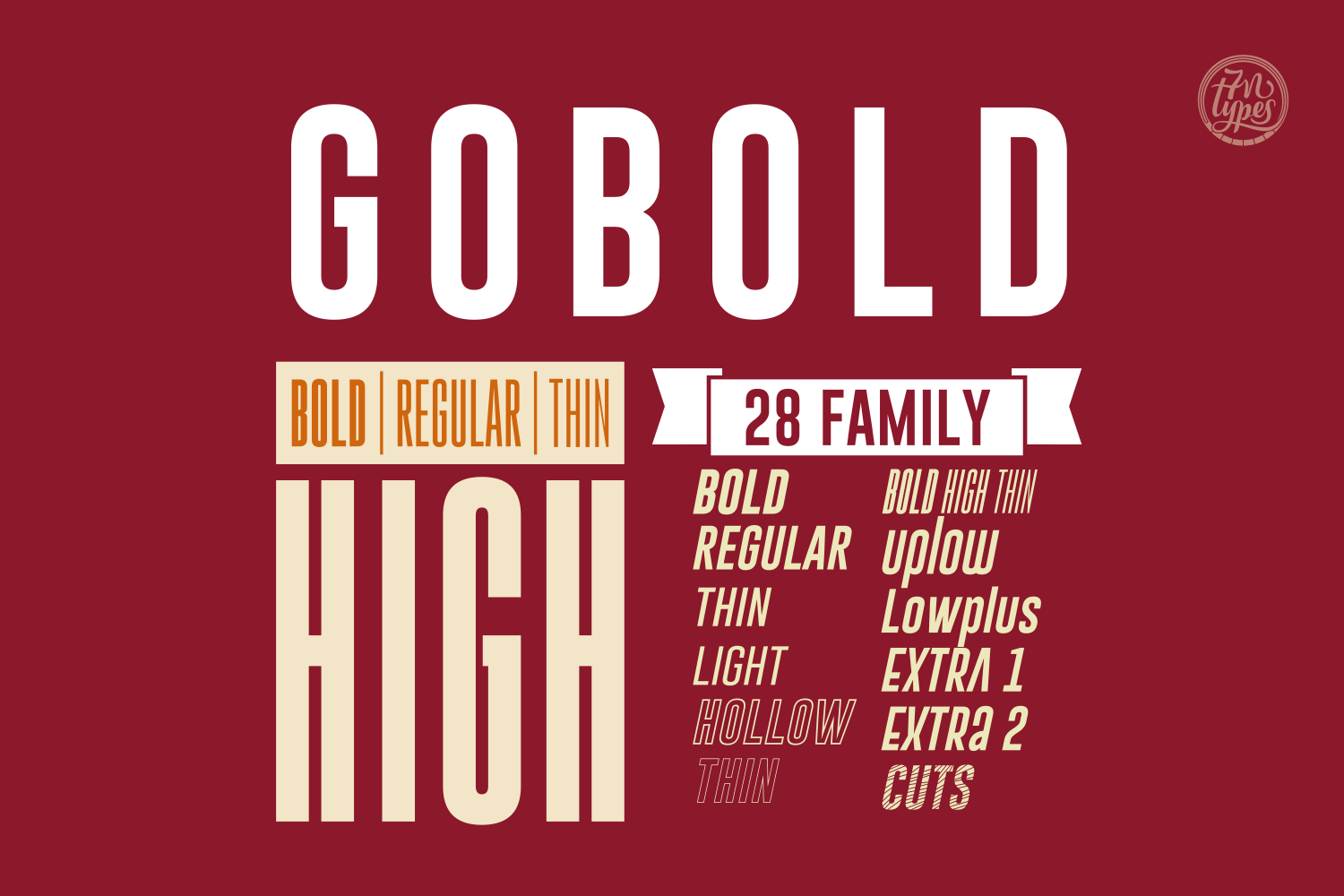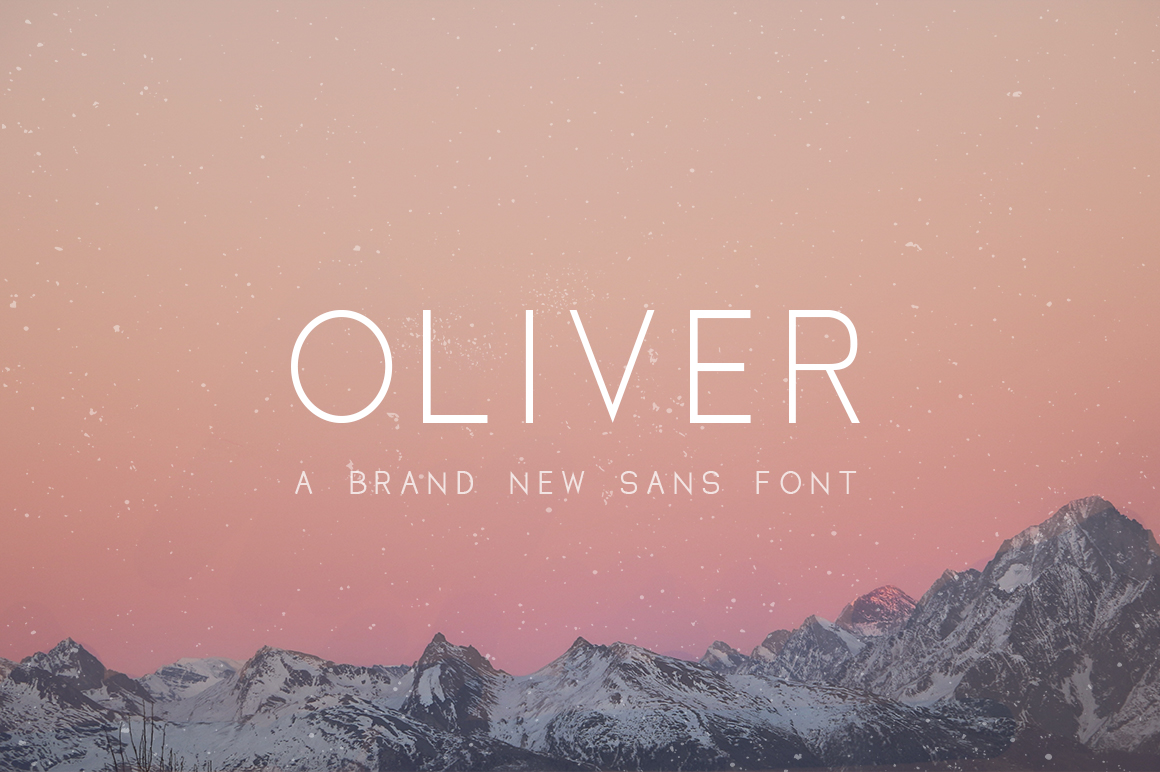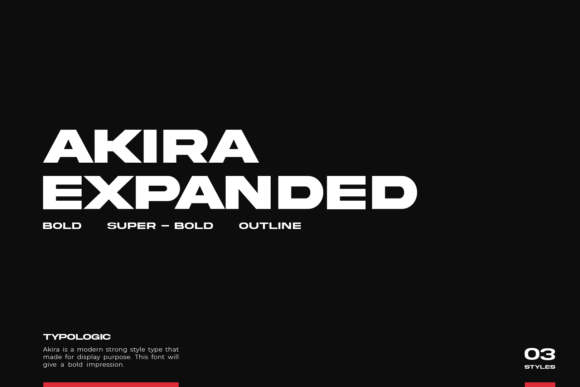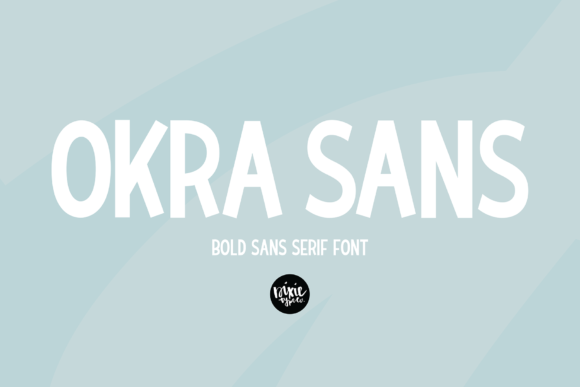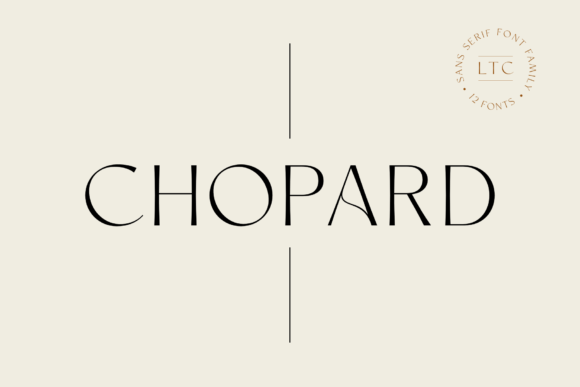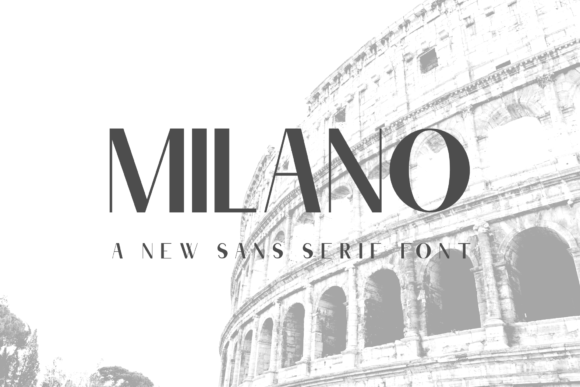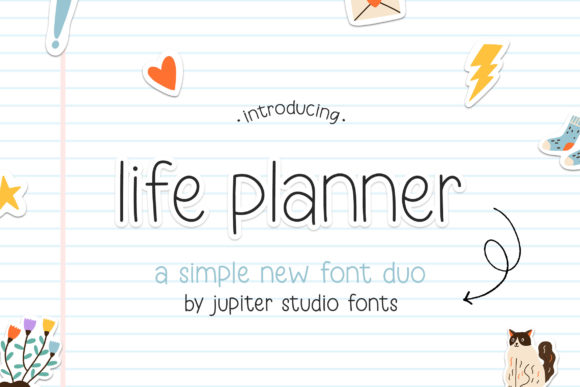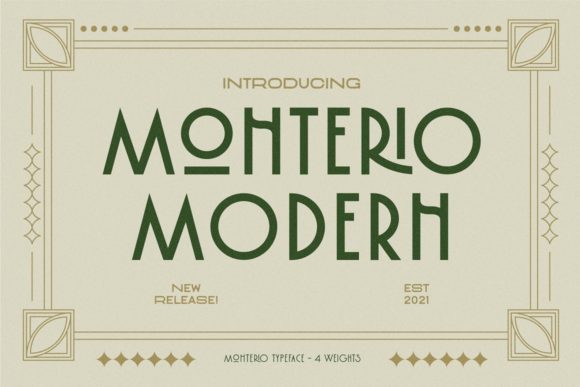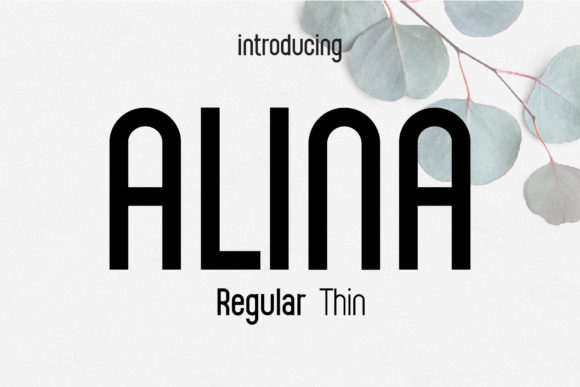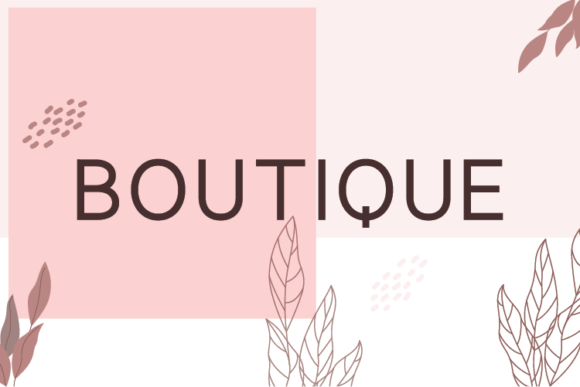
20 Sans Serif Fonts for Clean, Modern Brand Designs
Sans Serif Fonts & Modern Typography
Discover sans serif fonts for clean branding, modern logos, websites, packaging, editorial layouts, social media graphics, and professional design projects. These versatile typefaces can create a polished, contemporary, and memorable visual identity.
Why sans serif fonts work so well
Sans serif fonts are a popular choice for modern design because their clean forms and straightforward shapes can make typography feel clear, contemporary, and easy to read. Depending on their proportions, weight, spacing, and letterforms, they can also communicate very different personalities—from minimalist and elegant to bold, geometric, editorial, or playful.
How to Choose a Sans Serif Font
The right sans serif font depends on the personality of your brand and where the typography will be used. A geometric style can create a structured and modern impression, while a softer or more rounded design may feel approachable and friendly.
For logos and headlines, consider distinctive letterforms and strong visual presence. For websites and longer text, prioritize readability, spacing, and a comfortable rhythm. The strongest choice is usually the font that supports your overall visual identity rather than competing with it.
20 Sans Serif Fonts for Modern Designs
01 · Modern Sans Serif
Montreal Font
Montreal Font has a clean, contemporary appearance that works naturally across branding and modern graphic design. Its straightforward sans serif character makes it easy to combine with minimalist layouts and strong visual systems.
It can be a versatile option when you want typography that feels professional without becoming overly formal.
02 · Bold Modern Sans
Lemon Milk Pro FTR Font
Lemon Milk Pro FTR Font brings a strong modern presence to typography. Its bold display character can give headlines and brand names a confident, contemporary look.
The font is especially useful when typography needs to make an immediate visual impact while maintaining a clean sans serif foundation.
03 · Refined Sans Serif
Chopard Font
Chopard Font offers a polished display style that can add a refined edge to contemporary branding. Its clean construction makes it suitable for projects where simplicity and visual sophistication need to work together.
Use it for prominent typography where the font itself becomes part of the identity.
04 · Versatile Display
Life Planner Duo Font
Life Planner Duo Font combines a practical modern feel with a more expressive typographic personality. Its duo approach can give designers flexibility when creating hierarchy and pairing different lettering styles.
It can work particularly well for lifestyle-focused brands and creative projects that need more character than a purely neutral sans serif.
05 · Clean Branding
Oliver Font
Oliver Font has a simple, clean appearance that can adapt to a wide range of contemporary design projects. Its uncomplicated forms make it easy to use in layouts where clarity and visual balance are important.
It can also serve as a useful foundation for pairing with more decorative fonts.
06 · Contemporary Sans
Suprema Font
Suprema Font is suited to clean contemporary compositions where typography needs to feel structured and polished. Its modern sans serif character can support strong headlines while keeping the overall design uncluttered.
07 · Bold Display
Gobold Font
Gobold Font is designed for strong visual impact. Its bold sans serif character can make titles, names, and short phrases stand out clearly in contemporary layouts.
The heavier presence makes it especially useful when typography needs to become a prominent graphic element.
08 · Minimal Sans
Okra Sans Font
Okra Sans Font offers a clean typographic foundation for modern layouts. Its understated appearance can help create a balanced visual identity without adding unnecessary decoration.
09 · Expanded Display
Akira Expanded Font
Akira Expanded Font uses a wide display structure to create a bold and modern typographic presence. The expanded proportions can make short words and headlines feel especially prominent.
It works well when a design needs a strong horizontal visual rhythm.
10 · Minimalist Typography
Minimalist Aesthetic Font
Minimalist Aesthetic Font is designed around a clean and understated visual approach. It can help create spacious compositions where typography feels modern, calm, and intentional.
11 · Compact Sans Serif
Nano Font
Nano Font has a compact contemporary character that can work well in smaller branding elements and tightly structured compositions. Its simple appearance keeps the typography visually controlled.
12 · Playful Sans Style
Bubble Whimsy Font
Bubble Whimsy Font adds a softer and more playful interpretation of contemporary lettering. Its rounded visual character can make modern layouts feel approachable while maintaining a strong display presence.
13 · Modern Display
Nerova Font
Nerova Font provides a modern display option for projects that need a distinctive but clean typographic voice. Its contemporary character can help brand names and headlines stand apart.
14 · Elegant Sans
Monterio Font
Monterio Font offers a polished contemporary style that can fit naturally into sophisticated branding systems. Its clean construction allows the surrounding layout and visual identity to remain the focus.
15 · Bold Character
Sailors Font
Sailors Font brings a distinctive display personality to modern typography. Its strong character can help create branding that feels memorable and visually confident.
Use it selectively for prominent words and short phrases rather than long passages.
16 · Clean Contemporary
Song Font
Song Font provides a clean display style that can complement contemporary brand systems. Its simple appearance makes it easy to integrate into layouts with photography, illustrations, or other graphic elements.
17 · Refined Modern
Milano Font
Milano Font has a polished contemporary feel suited to clean and sophisticated compositions. It can give brand names and headlines a stylish visual presence without excessive ornamentation.
18 · Elegant Branding
Alina Font
Alina Font offers a clean yet expressive option for branding and display typography. Its contemporary character can add personality to simple layouts while keeping the overall design organized.
19 · Boutique Style
Boutique Font
Boutique Font is suited to stylish branding where typography needs to feel distinctive and polished. Its display-oriented character can work especially well with carefully balanced minimalist compositions.
20 · Playful Display
Oreo Font
Oreo Font adds a more playful visual personality to the modern sans serif category. Its display character can bring energy to short headlines and creative brand applications.
How to Use Sans Serif Fonts in Branding
1. Start with the brand personality.
Decide whether the identity should feel minimalist, bold, elegant,
friendly, technical, editorial, or playful before choosing the typeface.
2. Use display fonts selectively.
Strong sans serif fonts often work best for logos, headings, short
statements, and other high-visibility elements.
3. Pair contrasting weights.
Combining different weights of a clean sans serif can create hierarchy
without introducing too many unrelated typefaces.
4. Keep supporting typography simple.
If your main font has a strong personality, use a restrained supporting
font, generous spacing, and a clear layout to keep the design balanced.
Best Sans Serif Fonts by Style
Minimal & Clean
For minimalist and highly structured projects, consider Montreal, Suprema, Okra Sans, Minimalist Aesthetic, Nano, and Oliver.
Bold & Impactful
For headlines and designs that need stronger visual presence, explore Lemon Milk Pro FTR, Gobold, and Akira Expanded.
Elegant & Boutique
For fashion, beauty, lifestyle, and boutique branding, consider Chopard, Monterio, Milano, Alina, and Boutique.
Playful & Friendly
For more approachable and expressive projects, look at Bubble Whimsy, Life Planner Duo, and Oreo.
Distinctive Display
When the typeface needs to become a major part of the visual identity, Nerova, Sailors, and Song can provide a more distinctive display direction.
FAQ About Sans Serif Fonts
What is a sans serif font?
A sans serif font is a typeface whose letters do not have the small finishing strokes, or serifs, found in serif typography. Sans serif fonts are commonly used for modern branding, interfaces, headlines, and many digital designs.
Are sans serif fonts good for logos?
Yes. Sans serif fonts are frequently used in logo design because they can create a clean, contemporary identity. A distinctive sans serif can also be customized through spacing, weight, proportions, and letterform adjustments.
Which sans serif fonts are best for minimalist branding?
Minimalist Aesthetic, Okra Sans, Suprema, Montreal, Nano, and Oliver are examples from this collection that can fit minimalist branding directions.
Can bold sans serif fonts work for logos?
Yes. Bold and expanded styles can work particularly well for short brand names and wordmarks. Because they have a stronger visual presence, they are generally most effective when the logo text is relatively concise.
Can I use a sans serif font for packaging?
Absolutely. Sans serif fonts can work across product names, labels, packaging headlines, ingredient information, and supporting text. Choose the style and weight according to the hierarchy and readability required by the package.
How many fonts should I use in a brand identity?
Many brand systems can work effectively with one primary typeface plus one complementary font or a small range of weights. Keeping the typography system controlled usually makes the identity easier to recognize and maintain.
Are sans serif fonts good for websites?
Yes. Sans serif fonts are widely used in web design. For body copy, pay attention to letter spacing, line height, font size, and contrast so the text remains comfortable to read across different screen sizes.
Can I combine a sans serif font with a serif font?
Yes. A sans serif and serif combination can create useful contrast between headings and supporting text. The key is to establish a clear hierarchy and choose typefaces whose proportions and overall visual character complement each other.